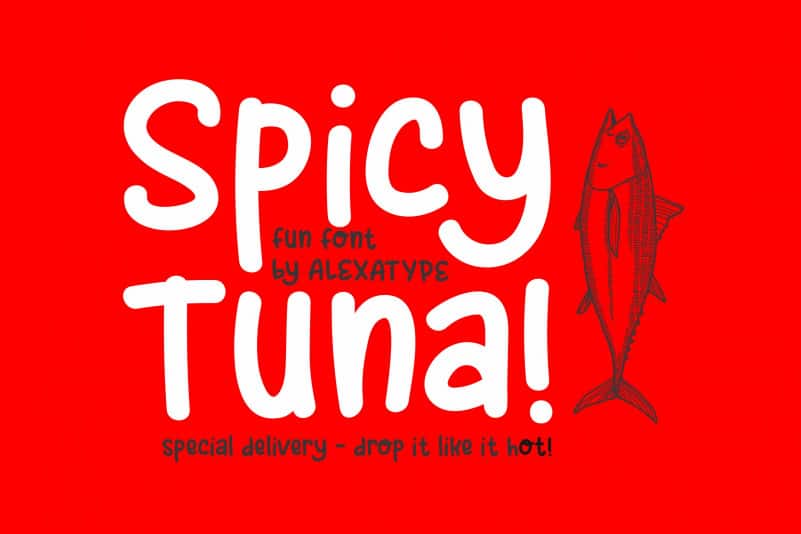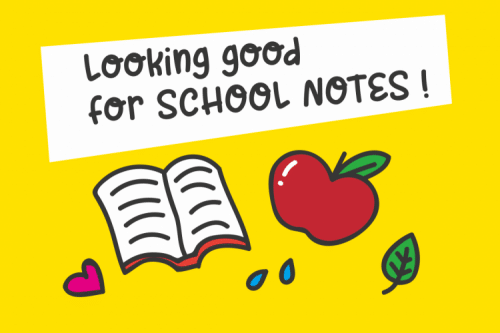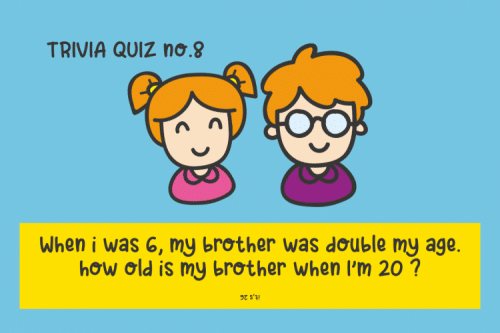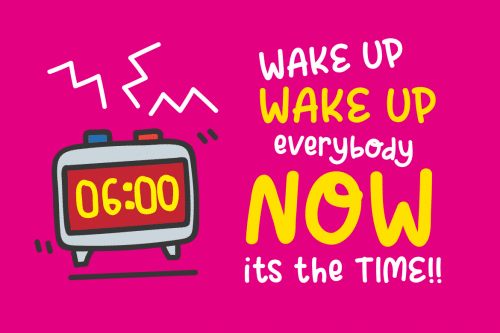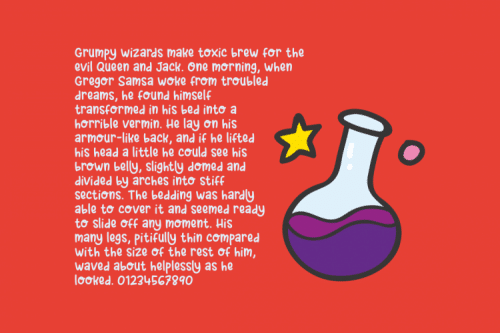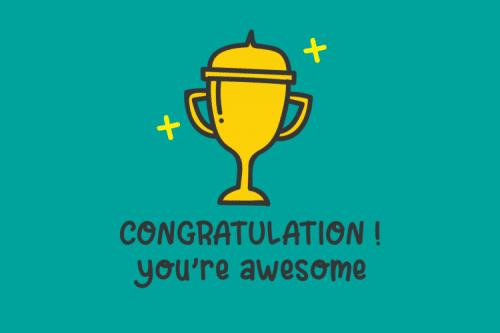
Spicy Tuna Sans Serif Font
Spicy Tuna, comes with rounded shape emphasizing the fun and friendliness they bring. Perfect for any fun project, schools, children related, or even a cafe and restaurant menu.